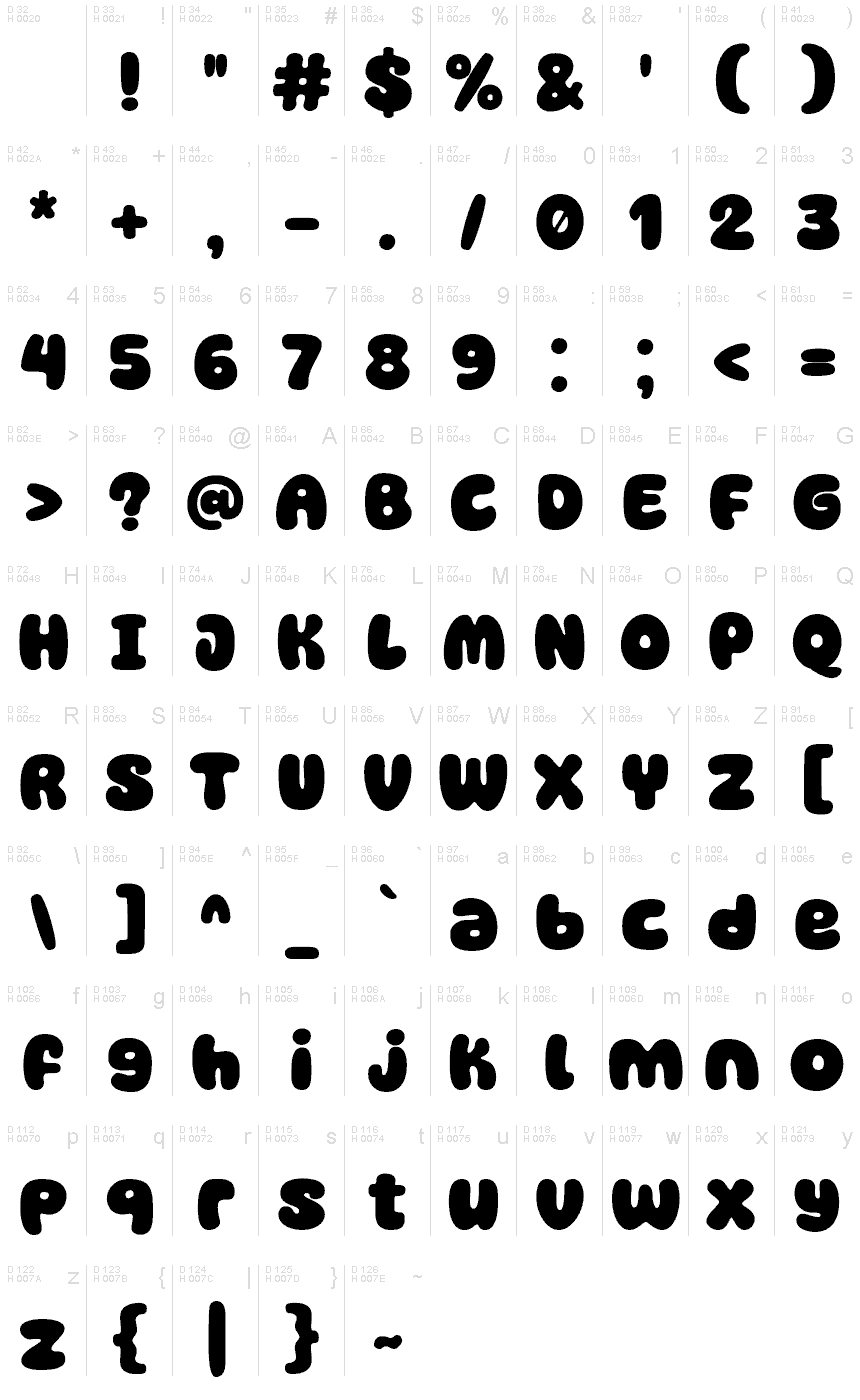
Super Kinds
Super Kinds font is a cartoon display typeface created by fsuarez913. Its retro aesthetic, bold weight, and soft rounded letterforms display a friendly vibe in every provided character. It also features vivid colors to further push the casual style for a fun design that translates perfectly. The convenient download provides multiple coloring options along with reshaping the font’s geometric forms at the correct angles.
Possible use cases of this free modern display font are postcards, video games, animated movies, bookmarks, business cards, book covers and pages, children’s event invitations or posters as well as headings and titles in editorial designs.